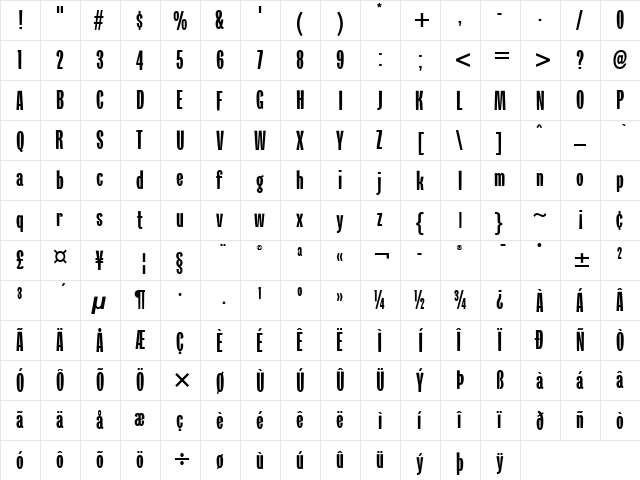
Verkehr ITC Bold
Design Context for Verkehr ITC Typeface
Verkehr ITC takes a measured approach to typography — its balanced proportions and neutral character make it a reliable workhorse for both digital and print work. The heavy weight commands attention and anchors typographic hierarchies.
Pro Tip: Use Verkehr ITC in both headline and body roles to test its range before committing to a single application.